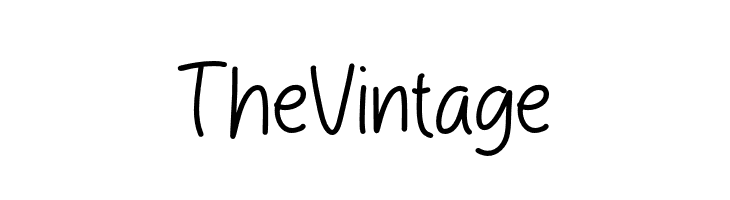
A playful, casual handwritten font with smooth, flowing lines and a personal touch.
A bold, handwritten font with smooth, flowing curves and a casual style.
A playful, bold handwritten font with rounded letterforms.
A bold, playful handwritten font with rounded, consistent strokes.
A bold, handwritten font with rounded edges and a playful style.
A playful, handwritten font with smooth, flowing lines and a casual appearance.
A playful, hand-drawn font with a whimsical and informal style.
A bold, playful font with a hand-drawn, whimsical style.